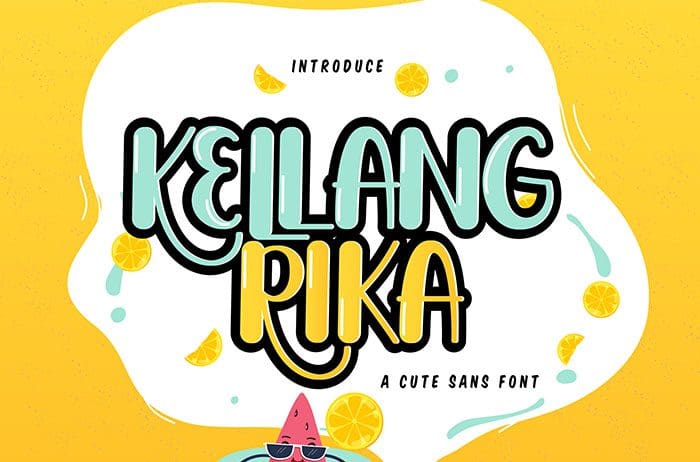
Kellang Rika Sans Font
Kellang Rika is a Sans Serif Font. It’s perfect for stationery, typography quotes, magazine or book cover, clothing, and many more. Thanks to Vunira Studio for sharing this font. Take a look at this portfolio for more of his stunning fonts.